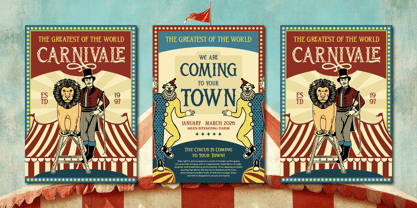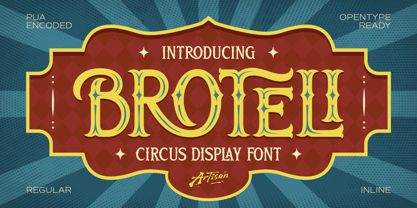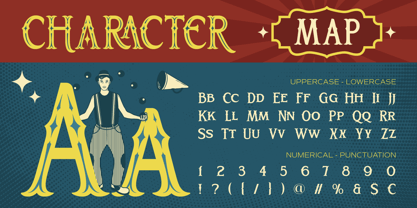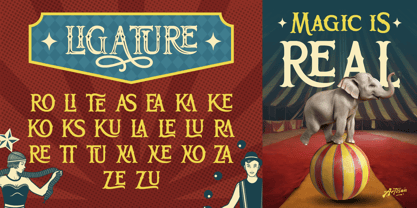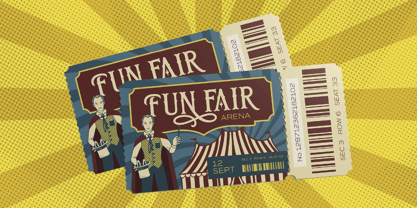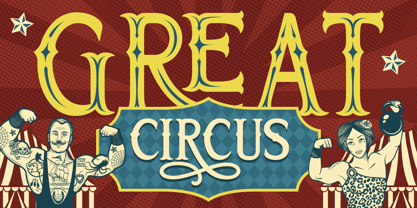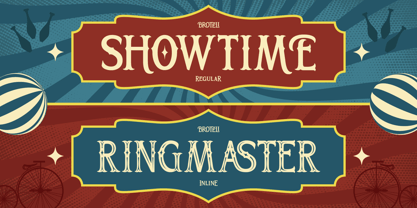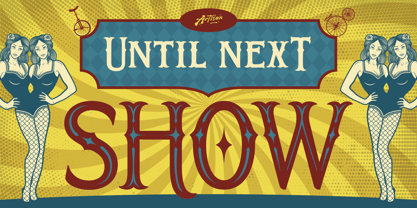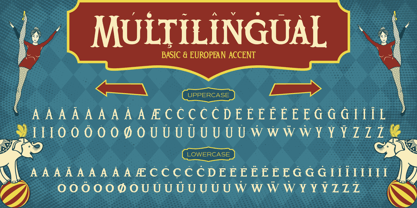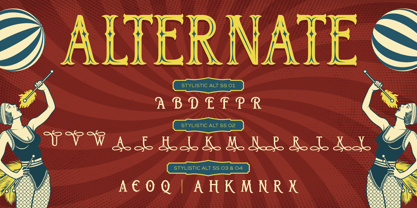
Broteli
Step right up and bring the magic of the circus into your designs with Broteli, a bold vintage display font inspired by classic carnival posters, retro signage, and old-school showtime aesthetics.
With its decorative serif style, playful curves, and strong personality, Broteli is perfect for creating eye-catching designs that feel nostalgic, fun, and full of character. Whether you're designing posters, branding, or editorial layouts, this font instantly adds a theatrical and timeless charm.
Broteli comes with regular and inline styles, giving you flexibility to create layered typography that stands out. Plus, it includes stylish alternates and ligatures to enhance your text with unique and artistic letter combinations.
Broteli is designed to make your typography feel alive—bold, expressive, and full of storytelling energy. If you're looking for a font that brings retro circus vibes with a modern touch, this one is ready to steal the show.
Perfect For: Vintage & retro poster design, Circus / carnival themed projects, Branding & logo design, Packaging design, Editorial & magazine headlines, Social media graphics, Event promotions
Features: A - Z set (Uppercase & Lowercase All Caps), Number, Punctuation, Alternates, Ligatures, Multilingual